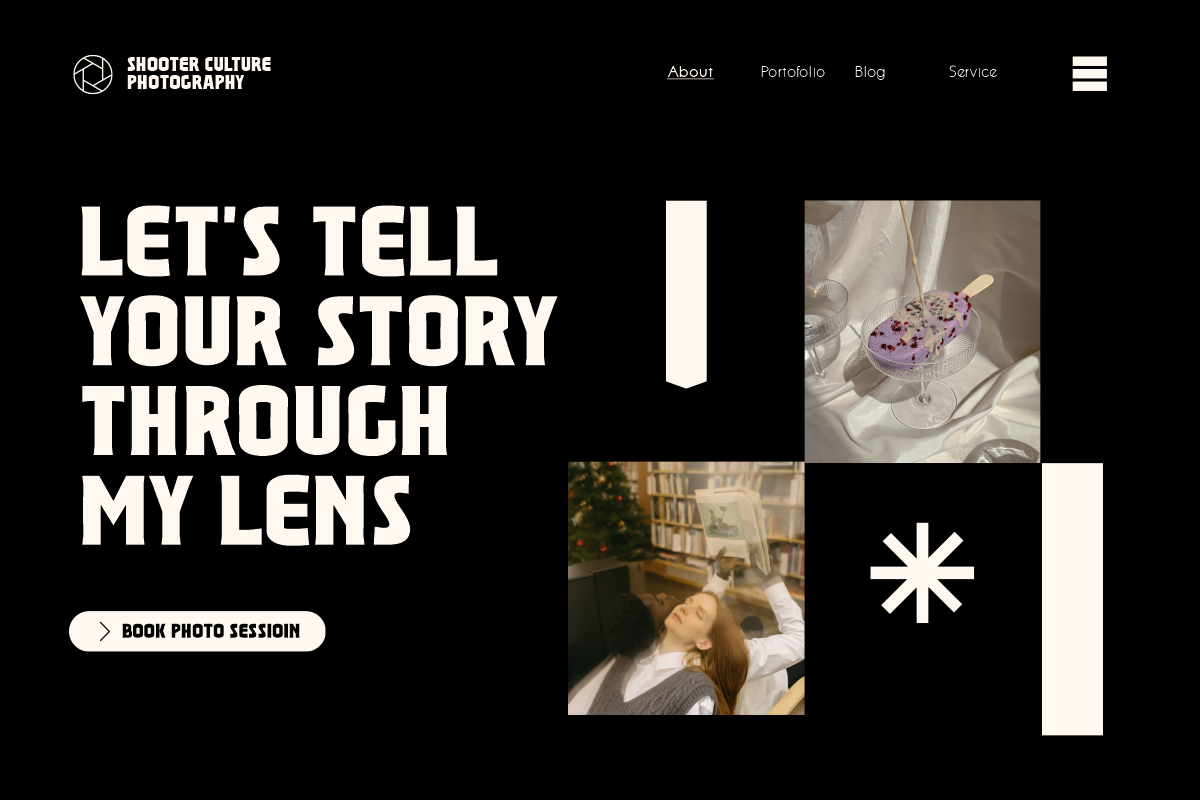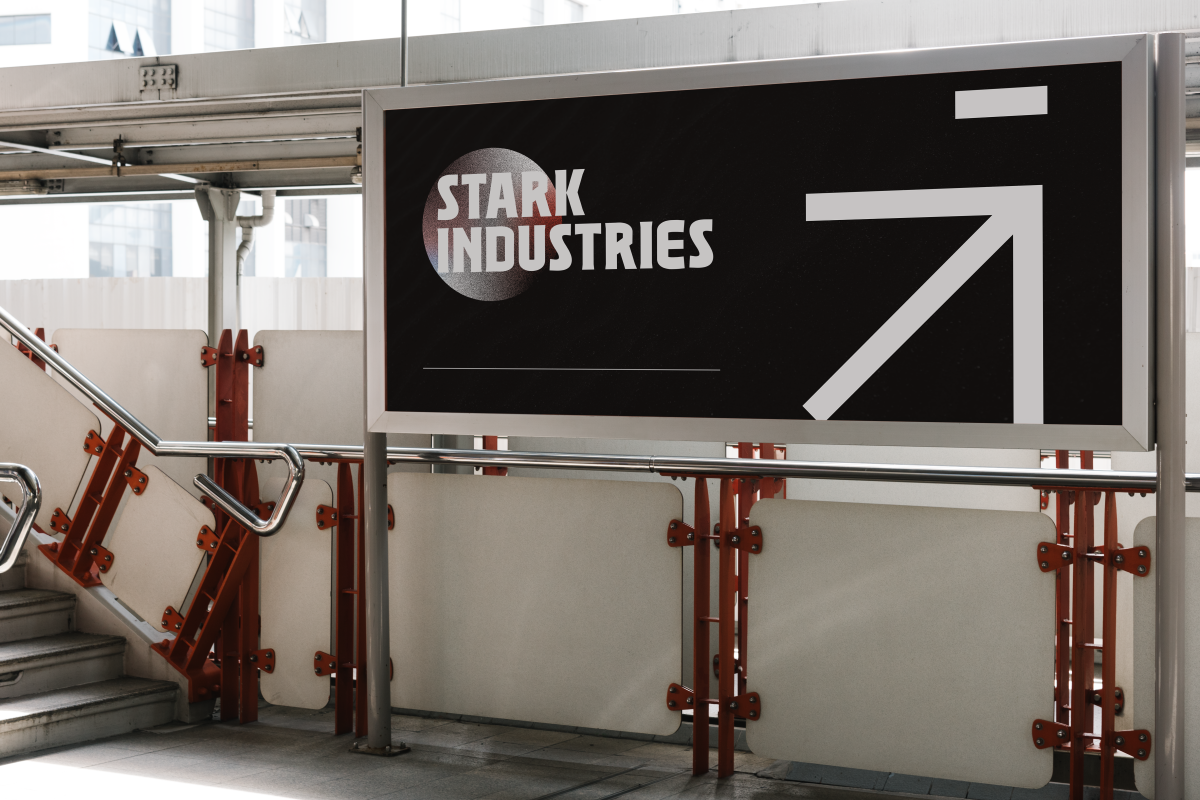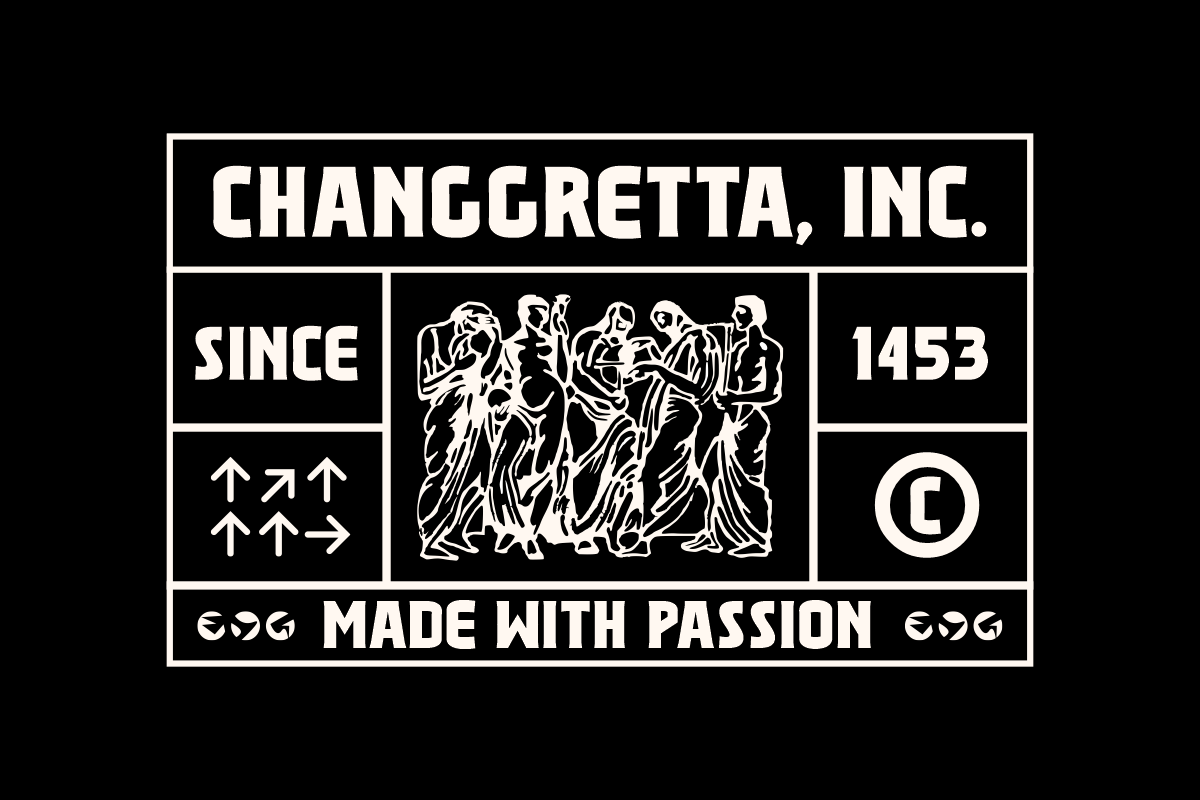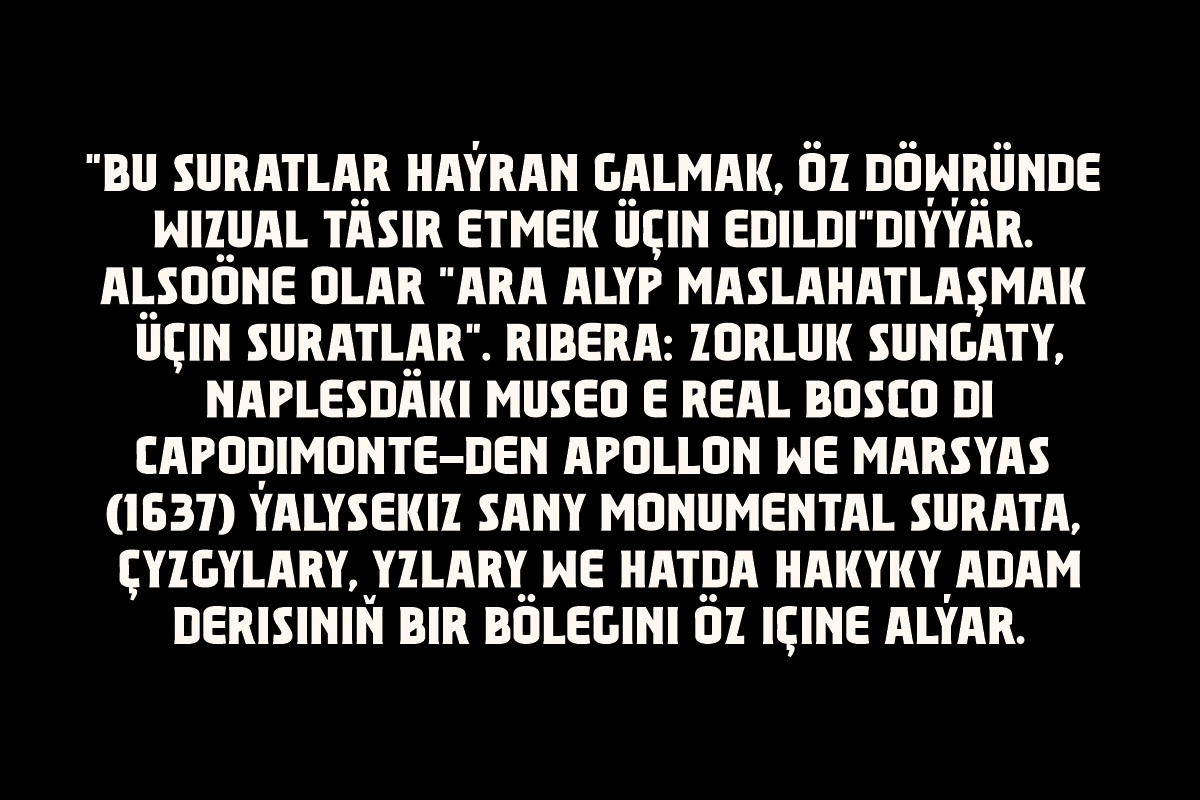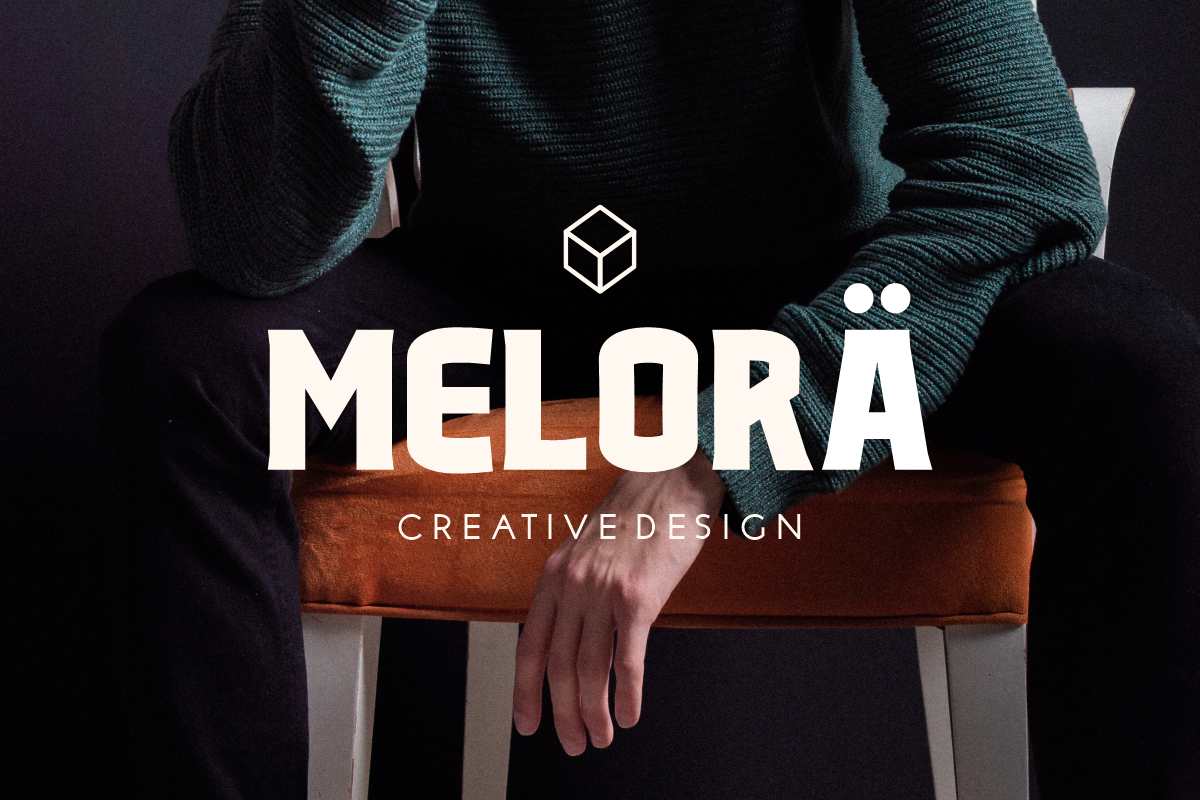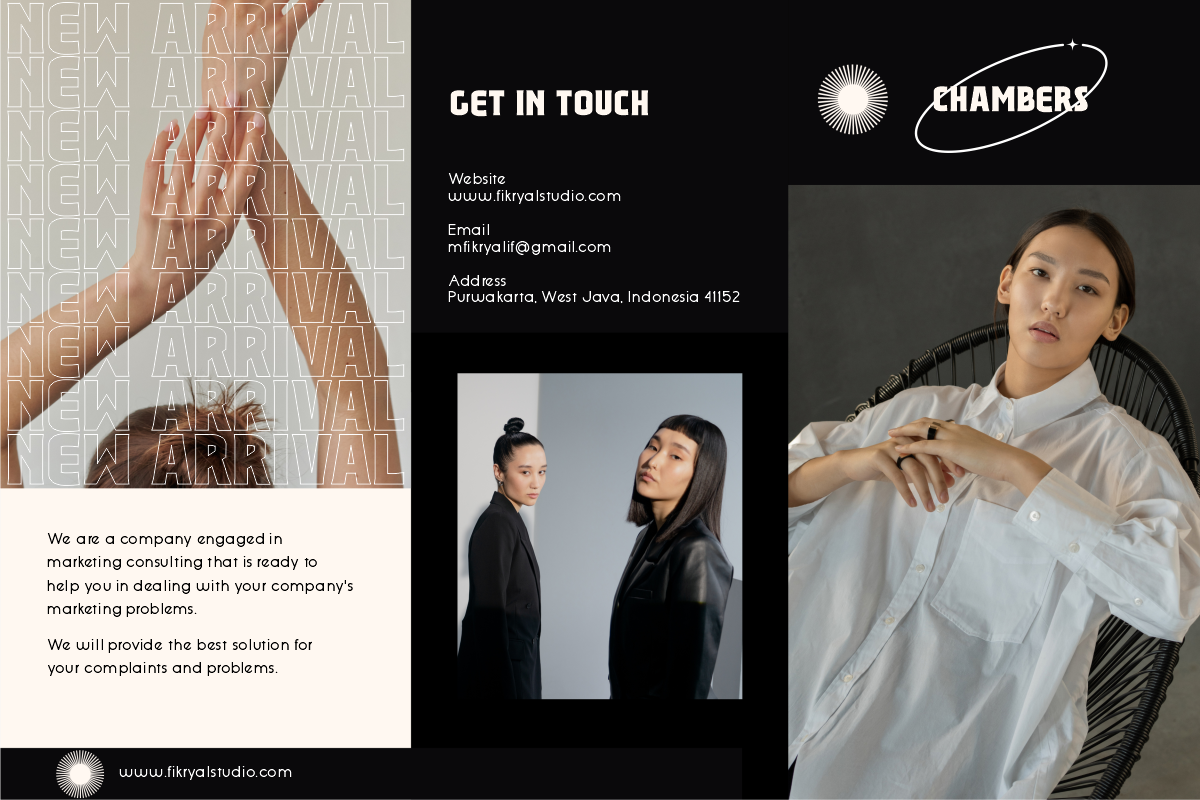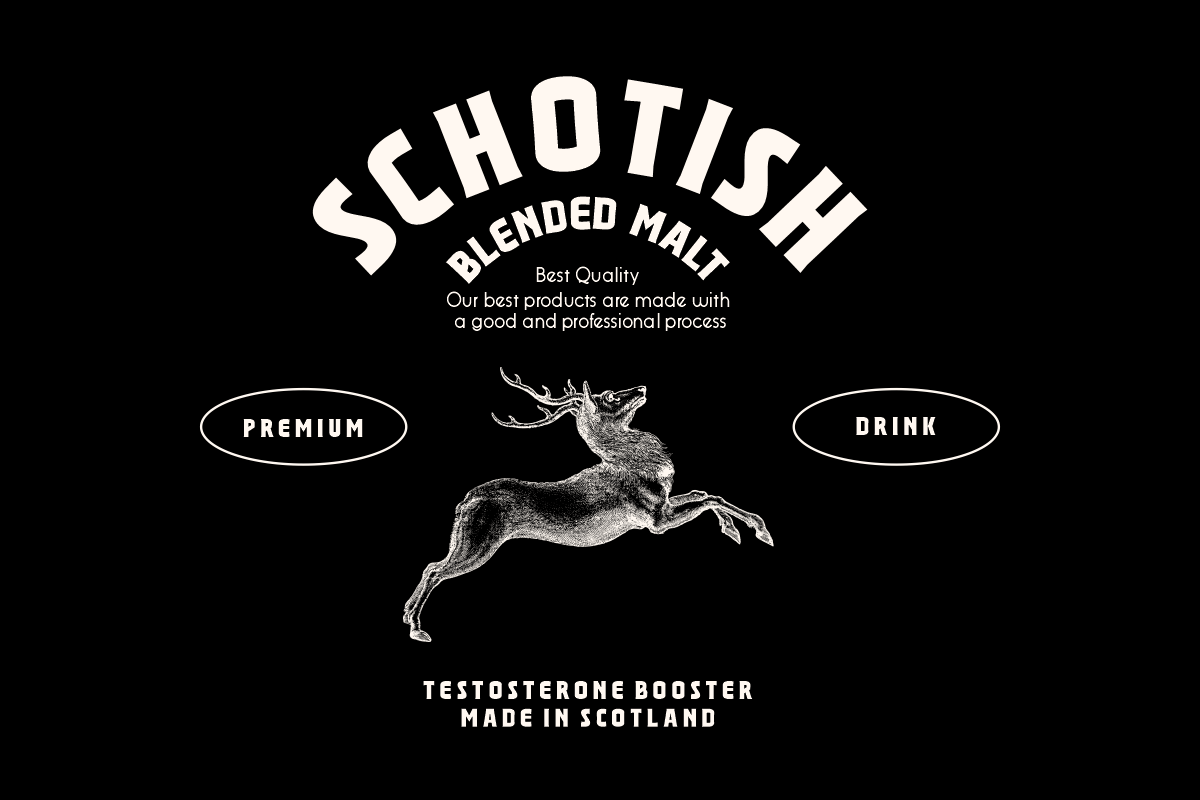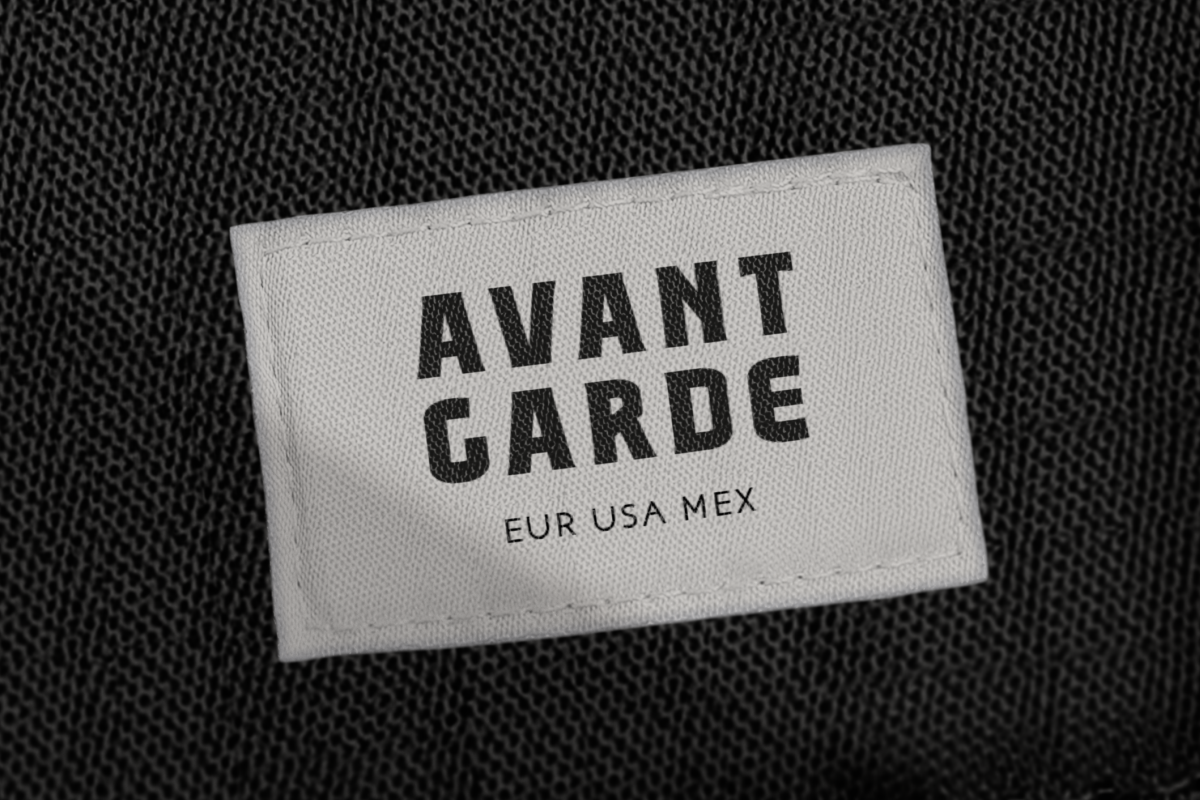
Champagne Toast – Display Serif
This font is very suitable to be applied in various aspects of design, and your branding. It’s perfect for logo, branding, title, social media posts, advertisements, product packaging, product designs, label, photography, watermark, special event, magazine, web designs, etc.